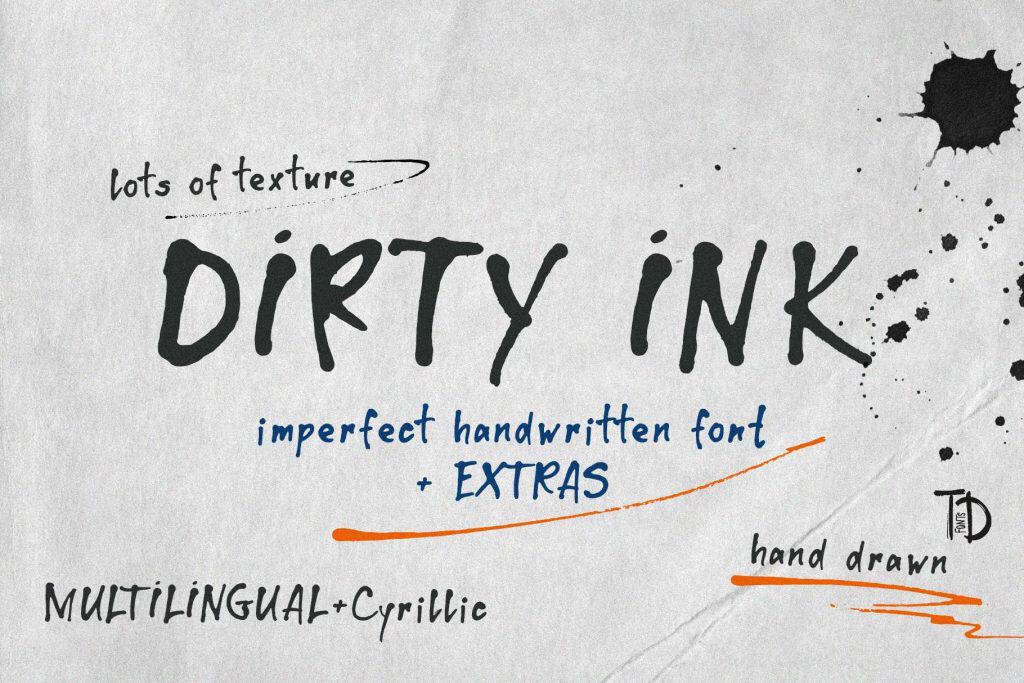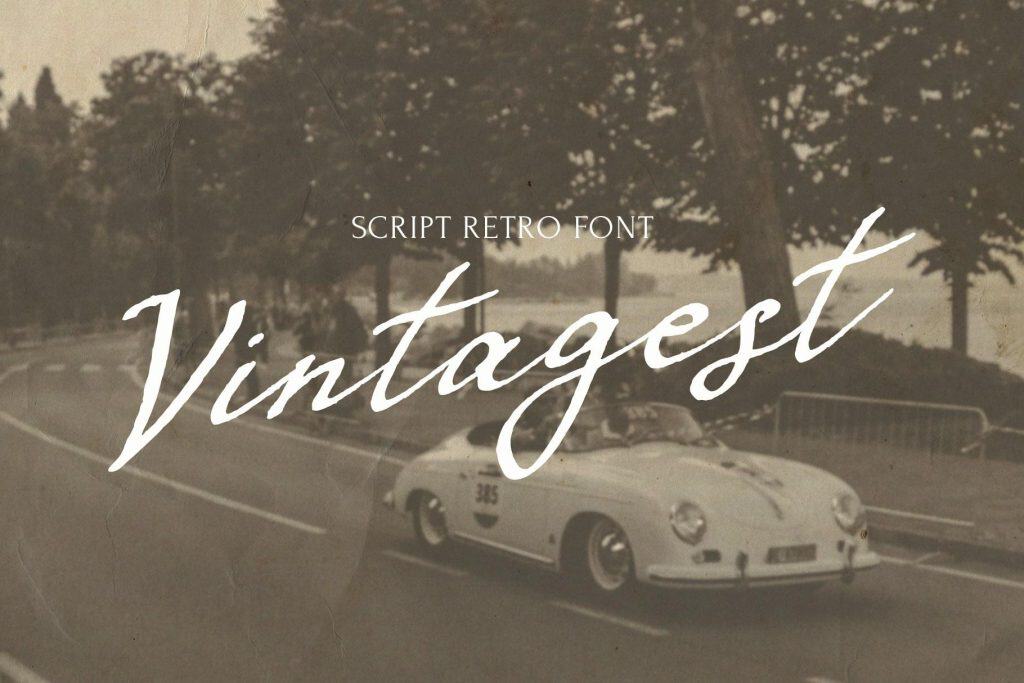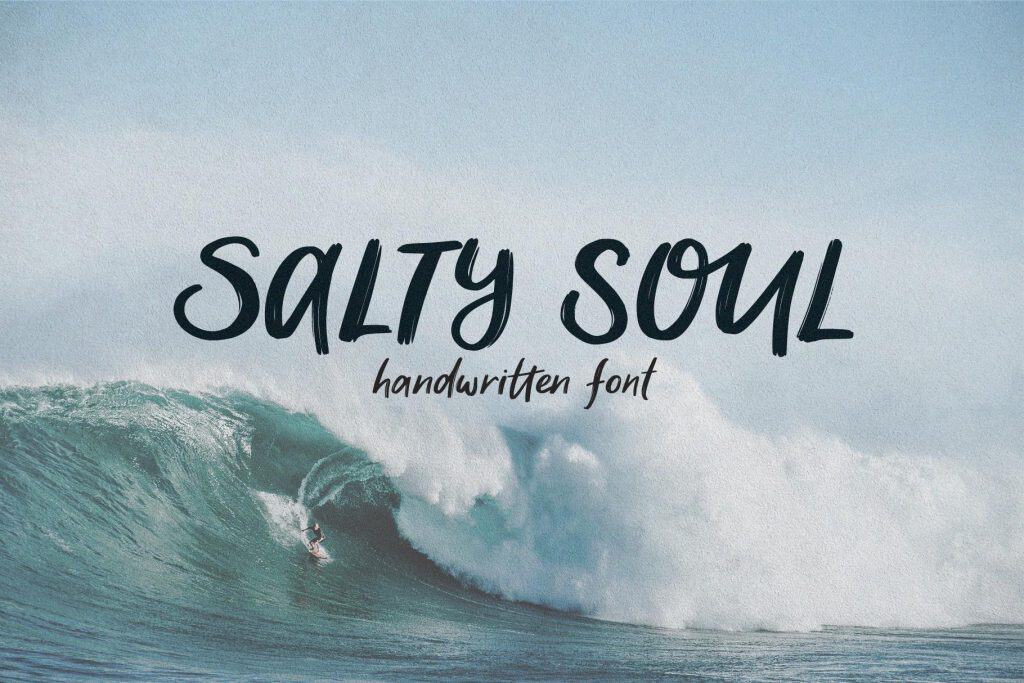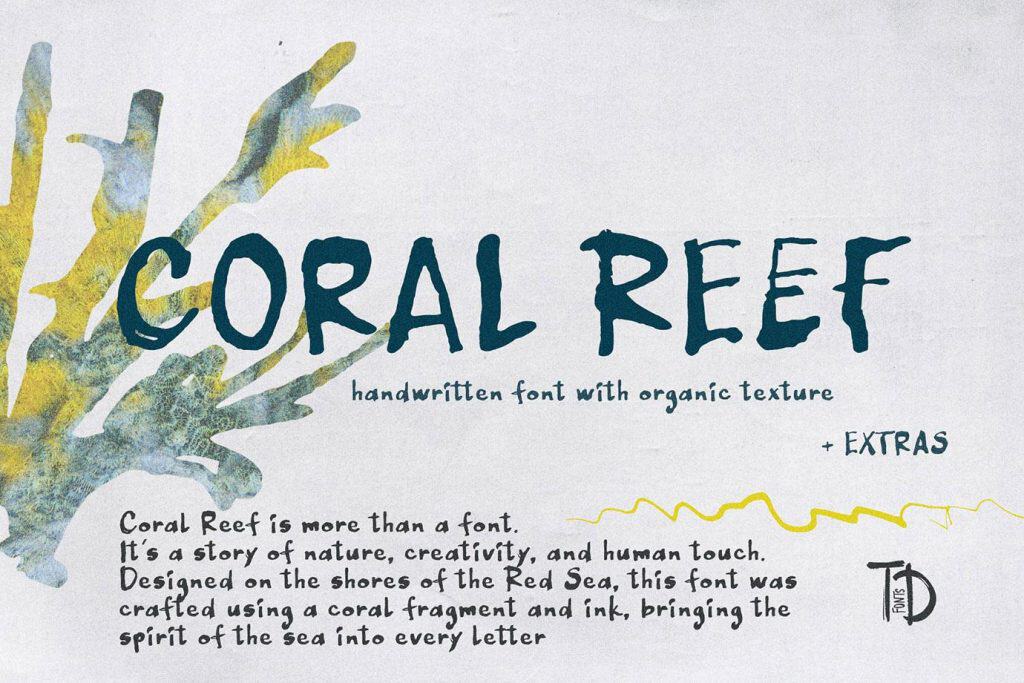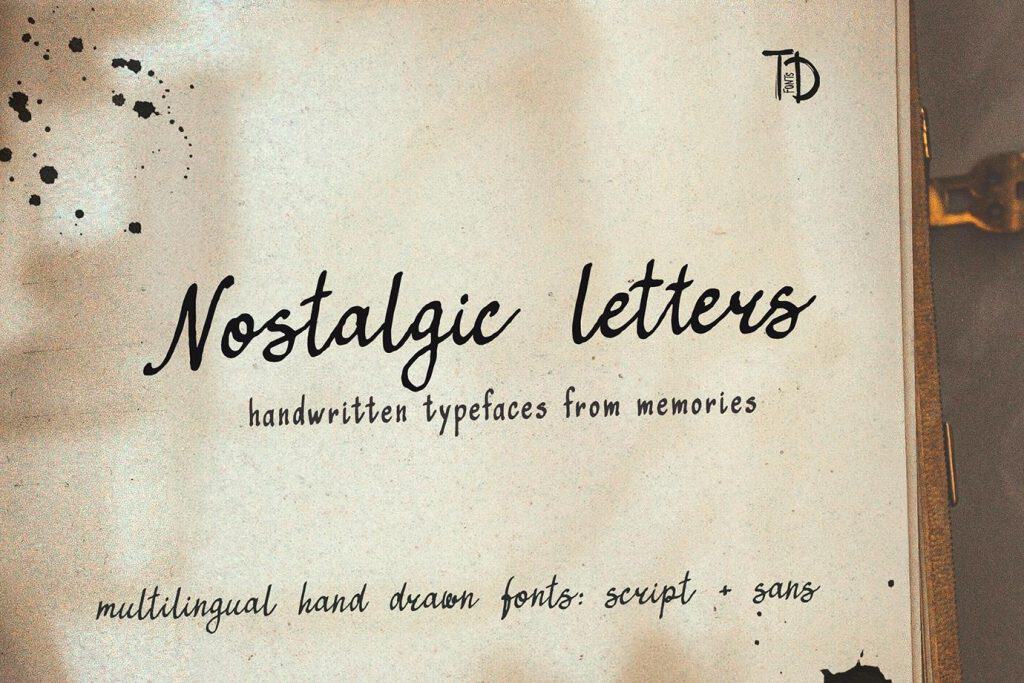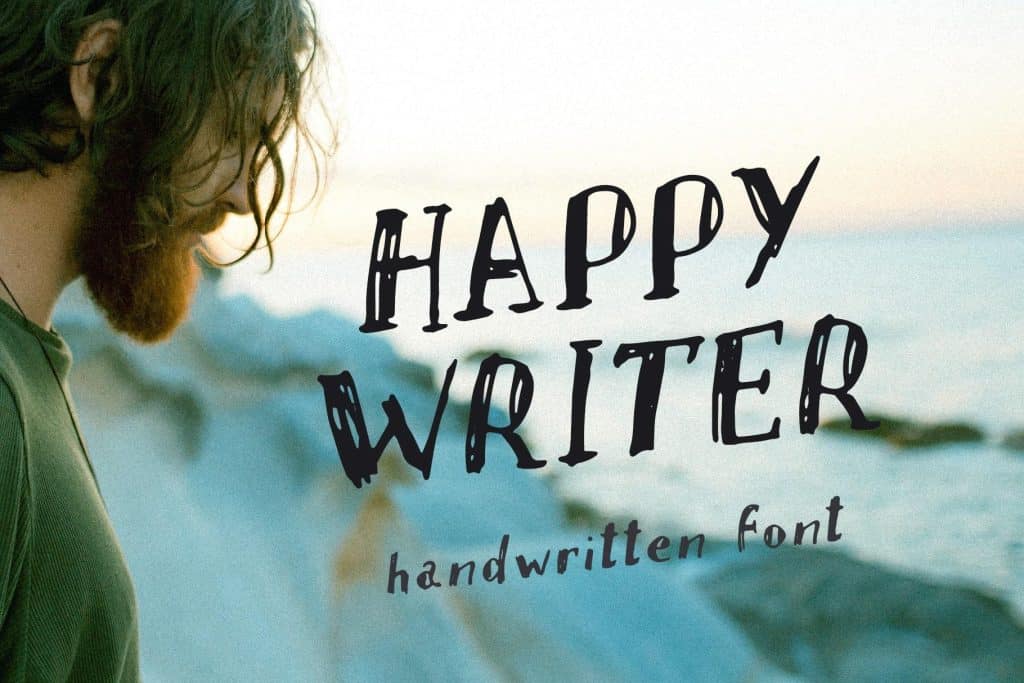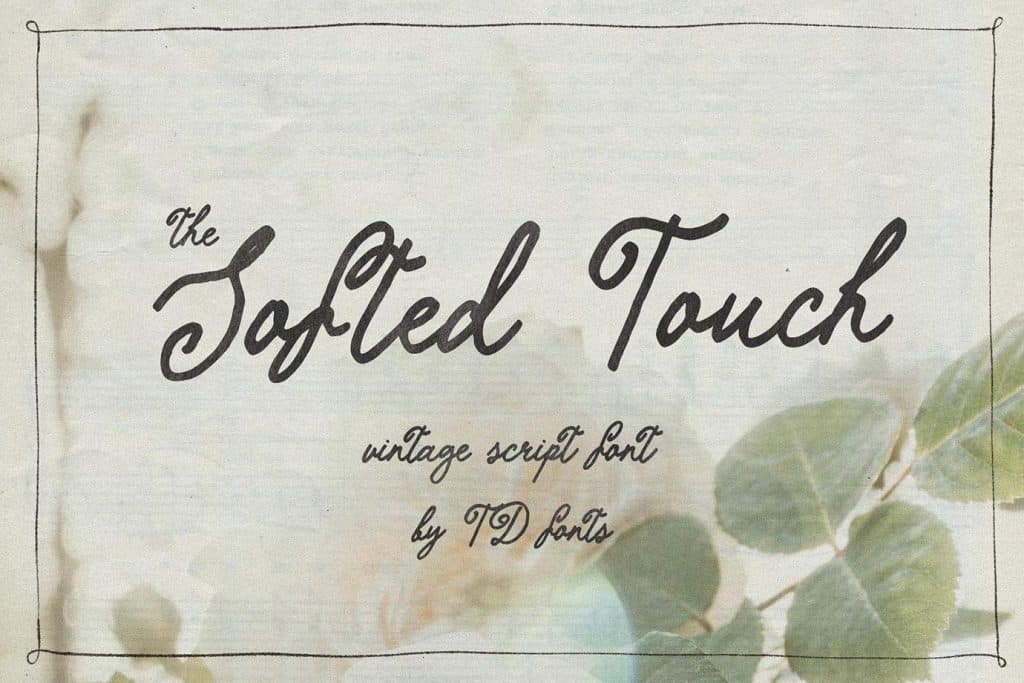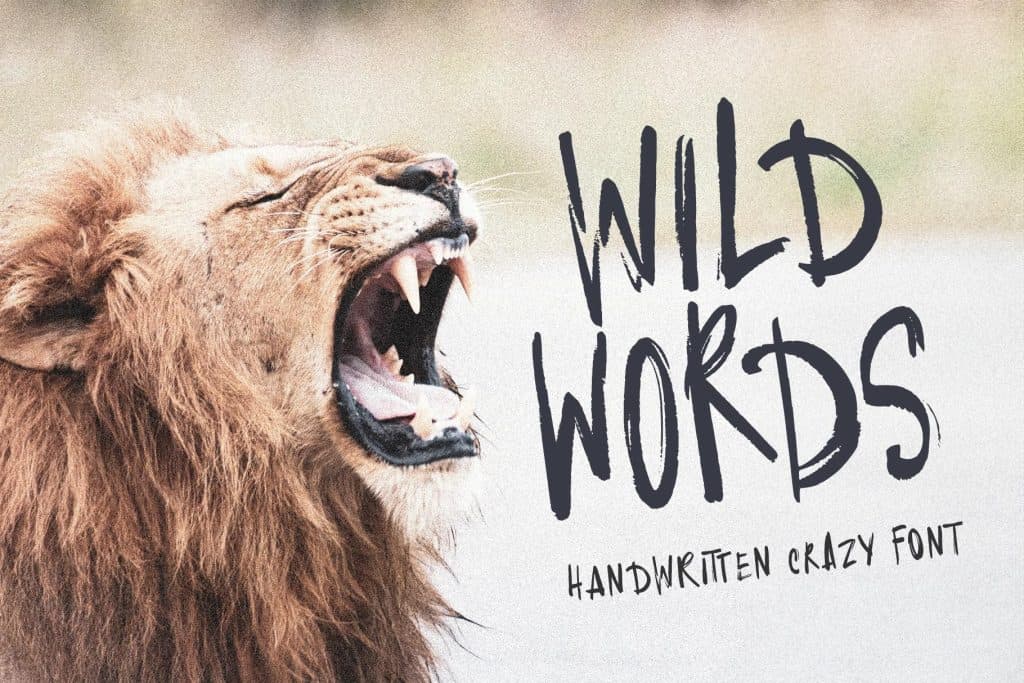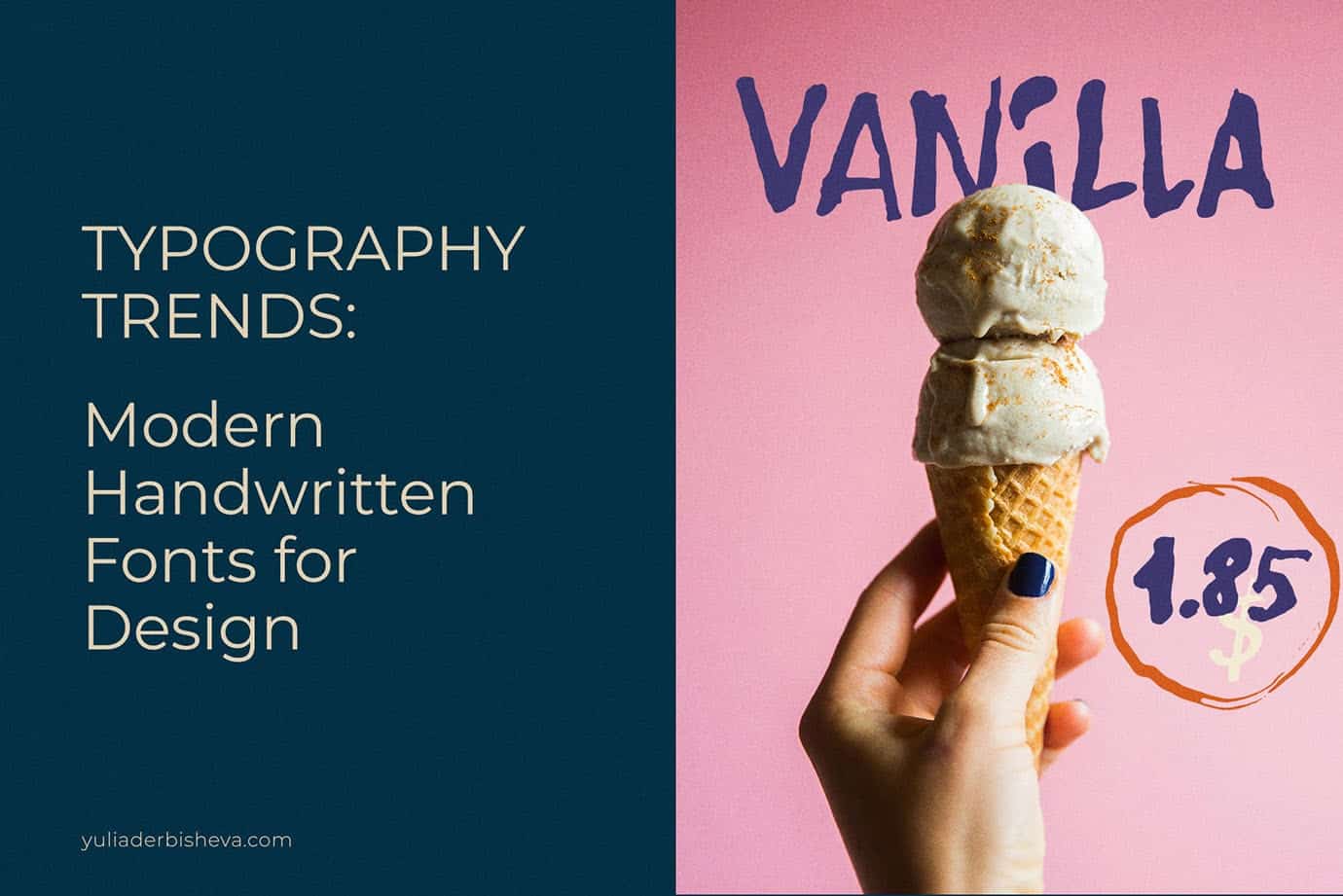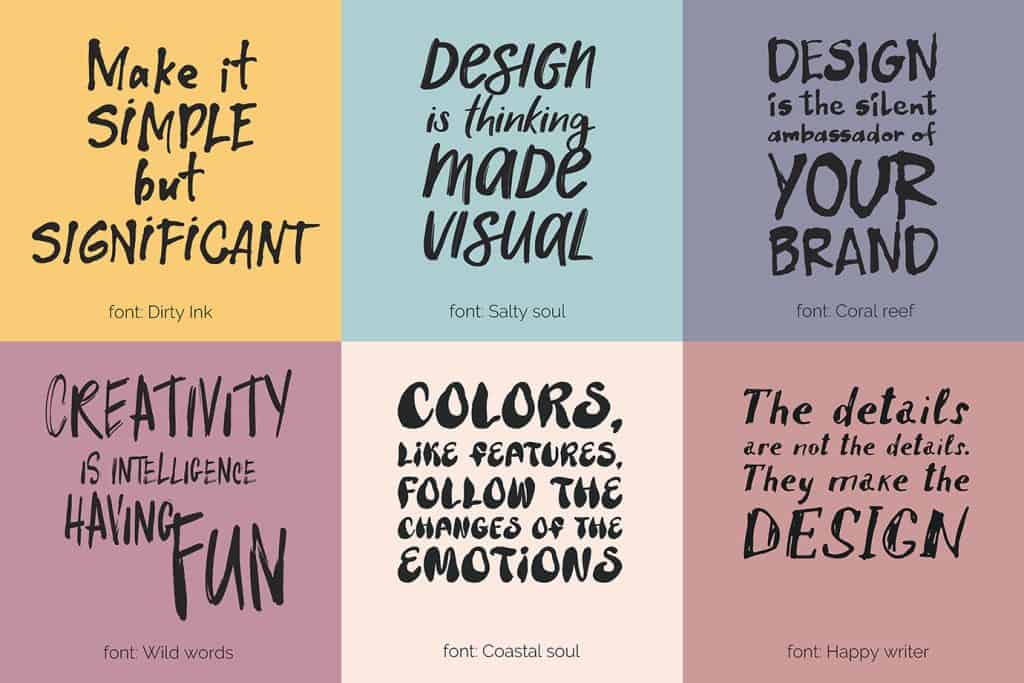
Typography trends 2026: handwritten fonts for expressive design
Handwritten fonts, bold typography, and cursive scripts keep adding warmth, creativity, and uniqueness to design — and heading into 2026, that pull toward analog, human-made typography is only getting stronger. Several major type foundries and design studios are calling it directly: after years of polished, AI-generated visuals, designers are craving type that feels textured, imperfect, and unmistakably made by hand.
Two distinct styles stand out right now: vintage scripts, reminiscent of delicate calligraphy written with a quill (or its modern imitation), and contemporary scripts — bold, free-flowing, with dynamic baselines and varying letter sizes.
Vintagest handwritten retro vintage ink script font for graphic design
Vintagest – retro ink script font by TD Fonts
Why handwritten fonts are having a moment
Like all things crafted by hand, these fonts carry a unique charm. They reflect individuality, creativity, and playfulness, making designs more memorable in a feed full of generic, machine-polished visuals. This isn’t just a stylistic preference — design studios are pointing to it as a direct reaction to AI fatigue: as the “overly polished, hyper-uniform AI aesthetic” becomes the norm, typefaces that feel grounded, textured, and a little imperfect are the counter-move. Perfectly polished fonts are out — expressive, distinctive typography is in.
Nostalgic letters font duo vintage retro script sans for graphic design and wedding
Nostalgic letters font duo – vintage & retro aesthetic in handwritten ink script and sans
The trend to watch: textured fonts
There are countless styles of handwritten fonts, but with the growing trend toward texture and a raw, edgy feel in design, textured fonts deserve special attention. These fonts mimic the look of real materials — marker, pen, pencil, or brush strokes — bringing a tactile quality that flat, vector-perfect type simply can’t match. What makes these fonts so distinctive is the texture itself — rough edges, visible grain, the kind of imperfection real materials naturally have. Many also feature a slightly uneven baseline, where letters don’t sit in a perfectly straight line but seem to dance just a little. The result is typography that’s genuinely memorable, with an unmistakable human touch — perfectly imperfect.
handwritten fonts trend in design 2025 2026
Hand Lettering with own handwritten fonts: Dirty Ink, Salty Soul, Coral reef, Wild Words, Coastal Soul, Happy writer
How to use handwritten and script fonts
Both script and bold statement fonts pair beautifully with clean sans-serifs — use a handwritten or textured font for headlines and personality, and let a simple sans-serif carry the supporting text. This contrast is what makes the handmade element pop without sacrificing readability.
That said, vintage and contemporary script fonts don’t always need a pairing — they hold their own beautifully on their own too. They’re a natural fit for wedding invitations and event invites, Christmas cards, and posters, as well as logos, social media content, and blog graphics. They also work wonderfully as standalone lettering on products — think t-shirts, mugs, and other merch.
Use them thoughtfully, and let your designs shine.